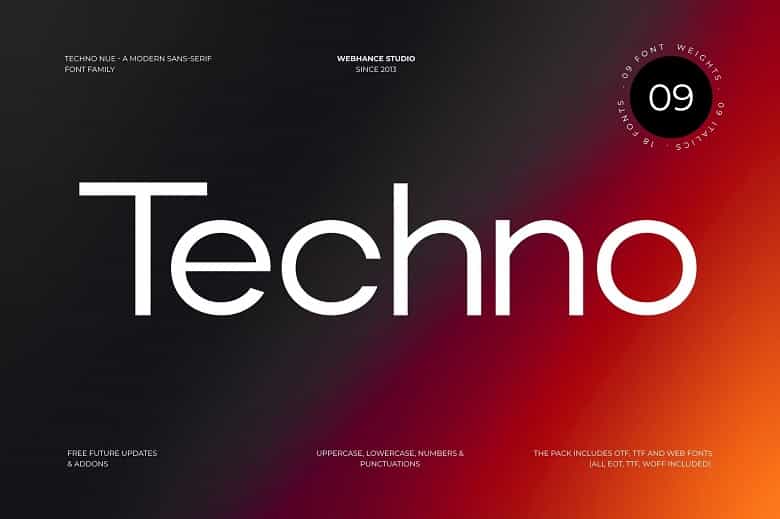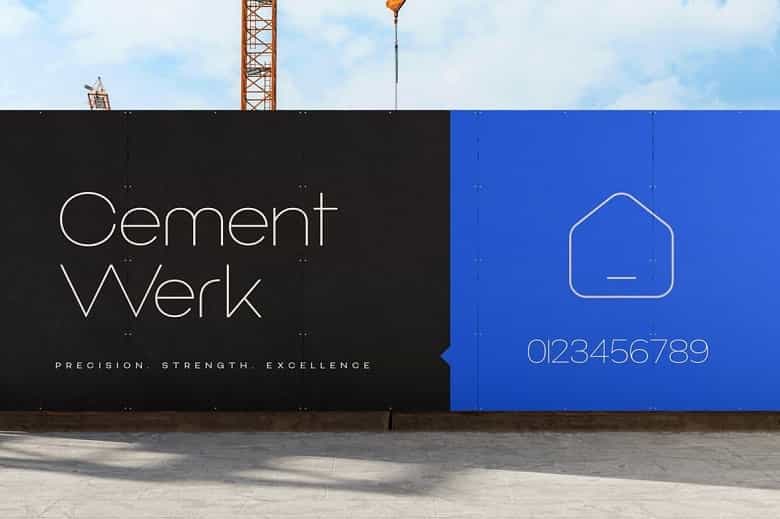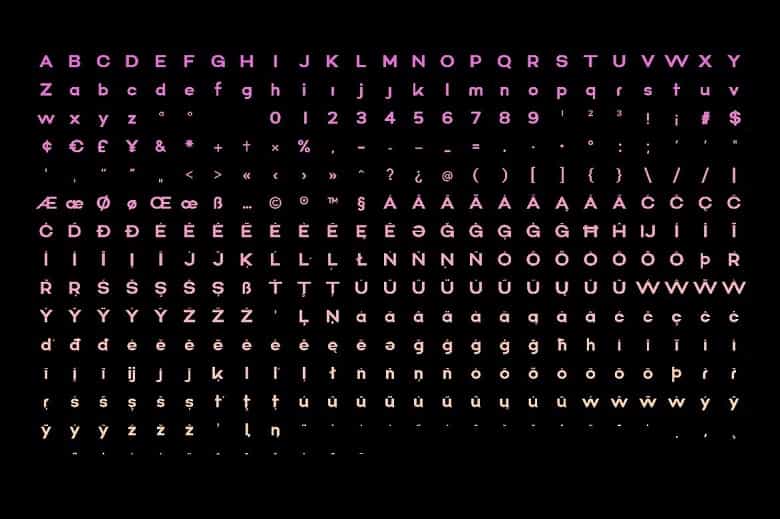
Techno Nue is a highly developed sans-serif font family that will complement any design project with its technical and clean look. The family has 9 weights from thin to heavy with italics and thus it becomes a library of 18 fonts. This font is best for branding, logo design, website designing, poster, Instagram post, social media banner, text for reels, video infographic, YouTube thumbnails and many more.